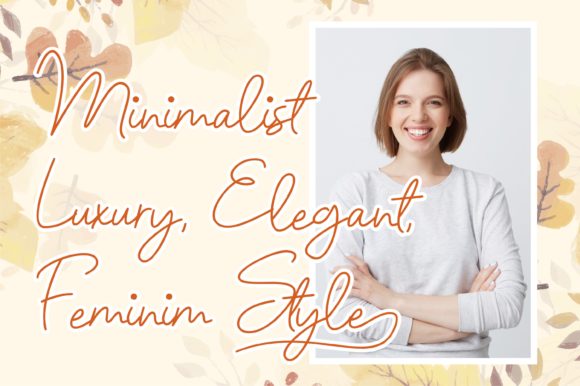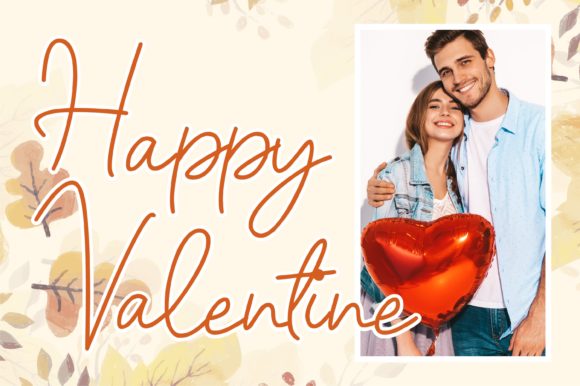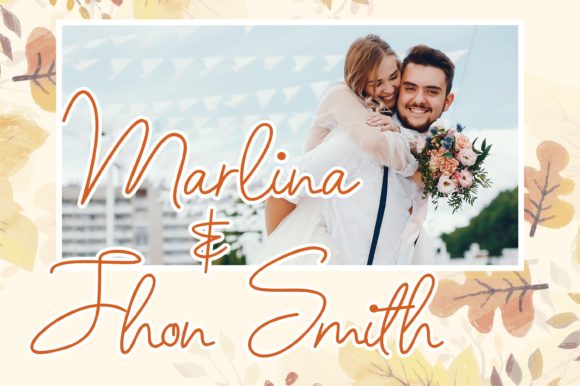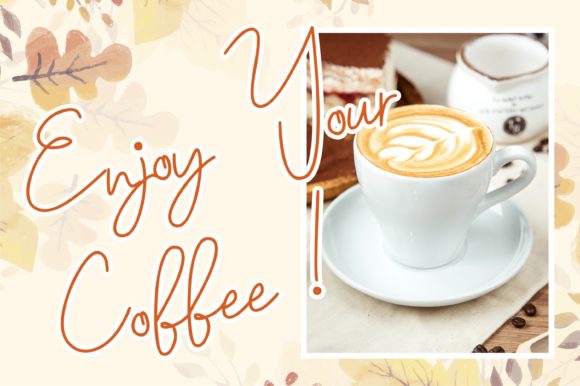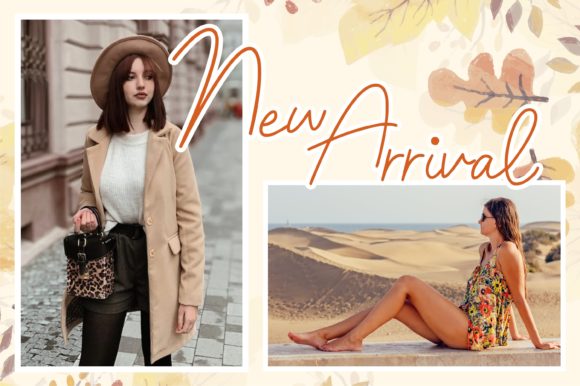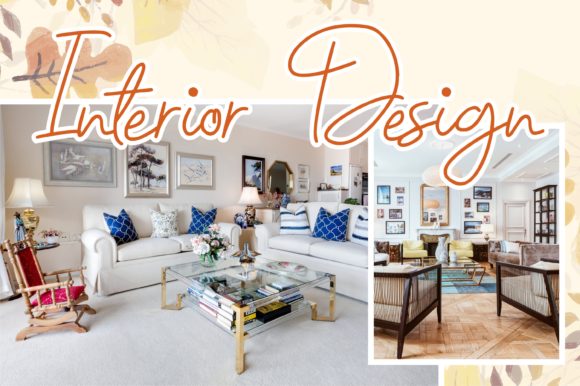
Introduction to Nellyta Font
Nellyta is a romantic and relaxed calligraphy font.
Key Features of Nellyta Font
Why Choose Nellyta Font?
Nellyta Font offers exceptional quality and versatility, making it a valuable addition to your design toolkit. Whether you’re creating for personal projects or commercial use, Nellyta Font delivers professional results.